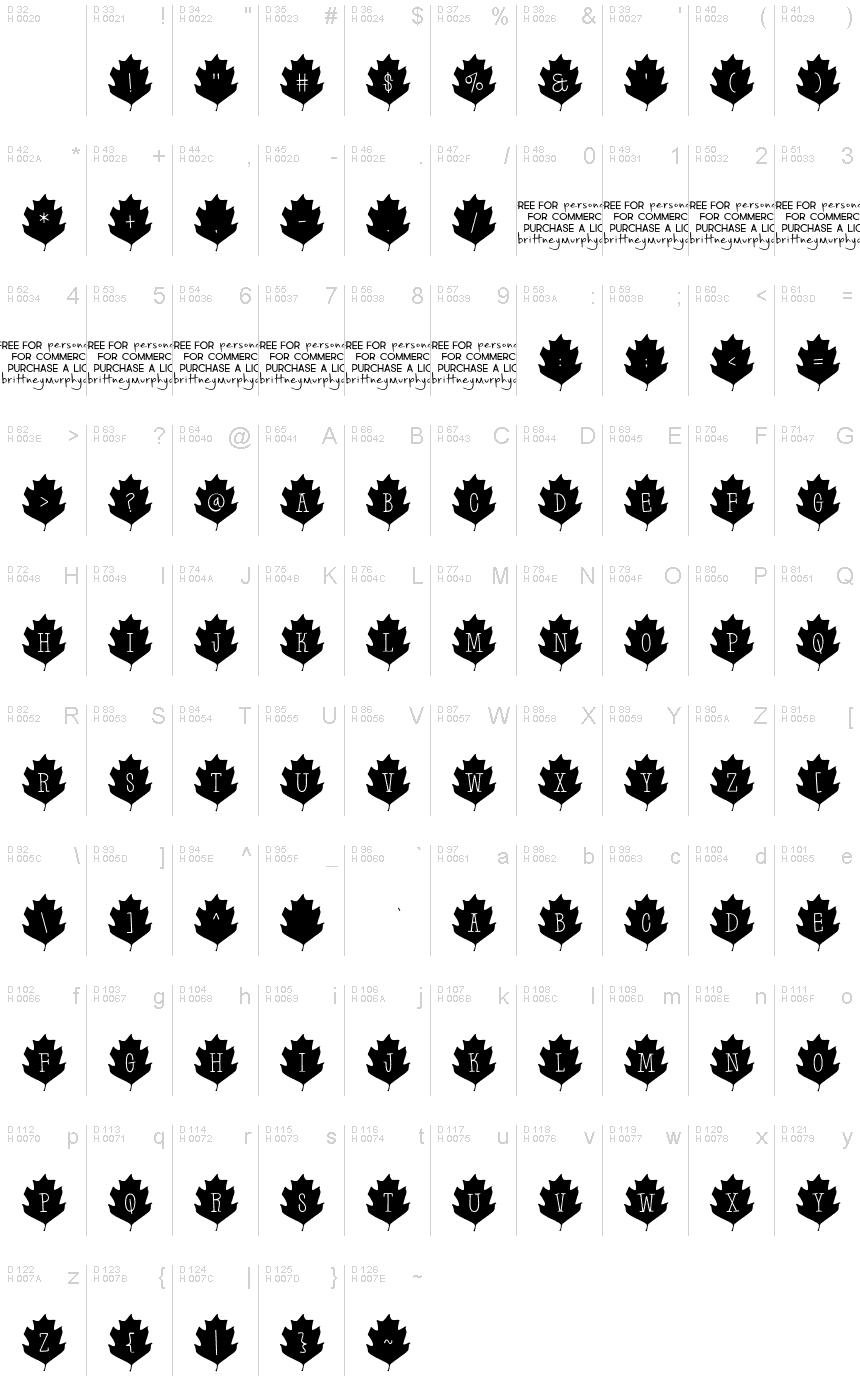
Leaf Letters Regular Demo
Leaf Letters, designed by Brittney Murphy Design, is a captivating display font perfect for adding a touch of whimsy and elegance to your creative projects. With its decorative style and light weight, Leaf Letters will add a unique charm to any design.
Whether you're working on invitations for a garden party or creating eye-catching signage for a boutique café, this font's maple leaf motifs with embedded characters will surely make your work stand out.
Let Leaf Letters bring your designs to life with its playful yet sophisticated appeal.
The Leaf Letters font is a cute typeface made up of leaves! Great for fall classroom decor or autumn designs.
Use the underscore _ for a blank leaf!